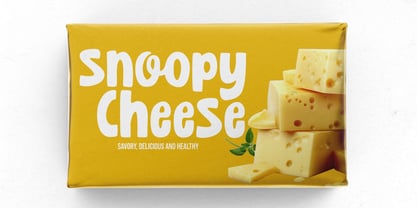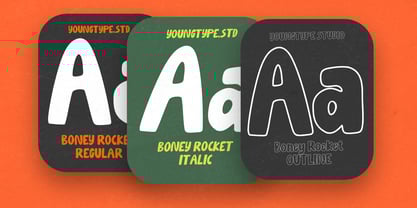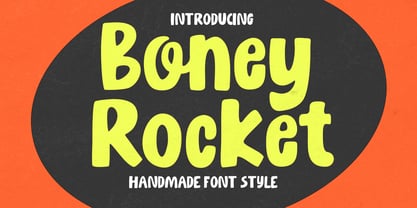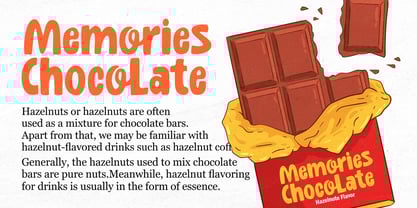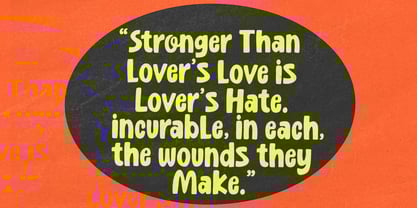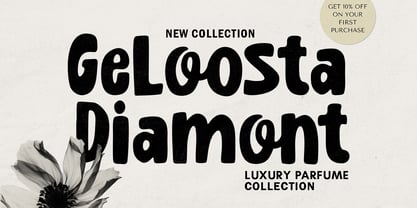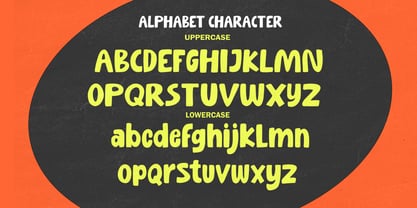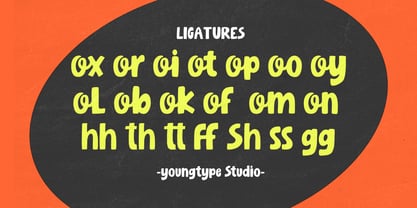
Boney Rocket
by Youngtype
The Boney Rocket Font Family was designed by Naufal Paramata and published by Youngtype. Boney Rocket contains 3 styles and family package options. More about this family
Boney Rocket is a bold, playful, and handcrafted display font designed to bring a sense of fun and personality to your creative projects. With its thick strokes, rounded edges, and quirky letterforms, this font exudes a retro charm while maintaining a contemporary, approachable feel.
Key Features:
• Handmade Aesthetic: Each character carries a hand-drawn quality, giving the font an organic and authentic feel—perfect for projects that need a personal touch.
• Bold and Friendly: The chunky, bubbly forms are inviting and easy to read, making it great for headlines, posters, product packaging, children's books, or branding with a whimsical twist.
• Playful Character Design: Letters feature uneven baselines, subtle curves, and varying shapes, contributing to a dynamic and energetic visual rhythm.
• High Contrast Use: As shown in the sample image, Boney Rocket works well with bold color combinations and vintage textures, enhancing its retro and eye-catching vibe.